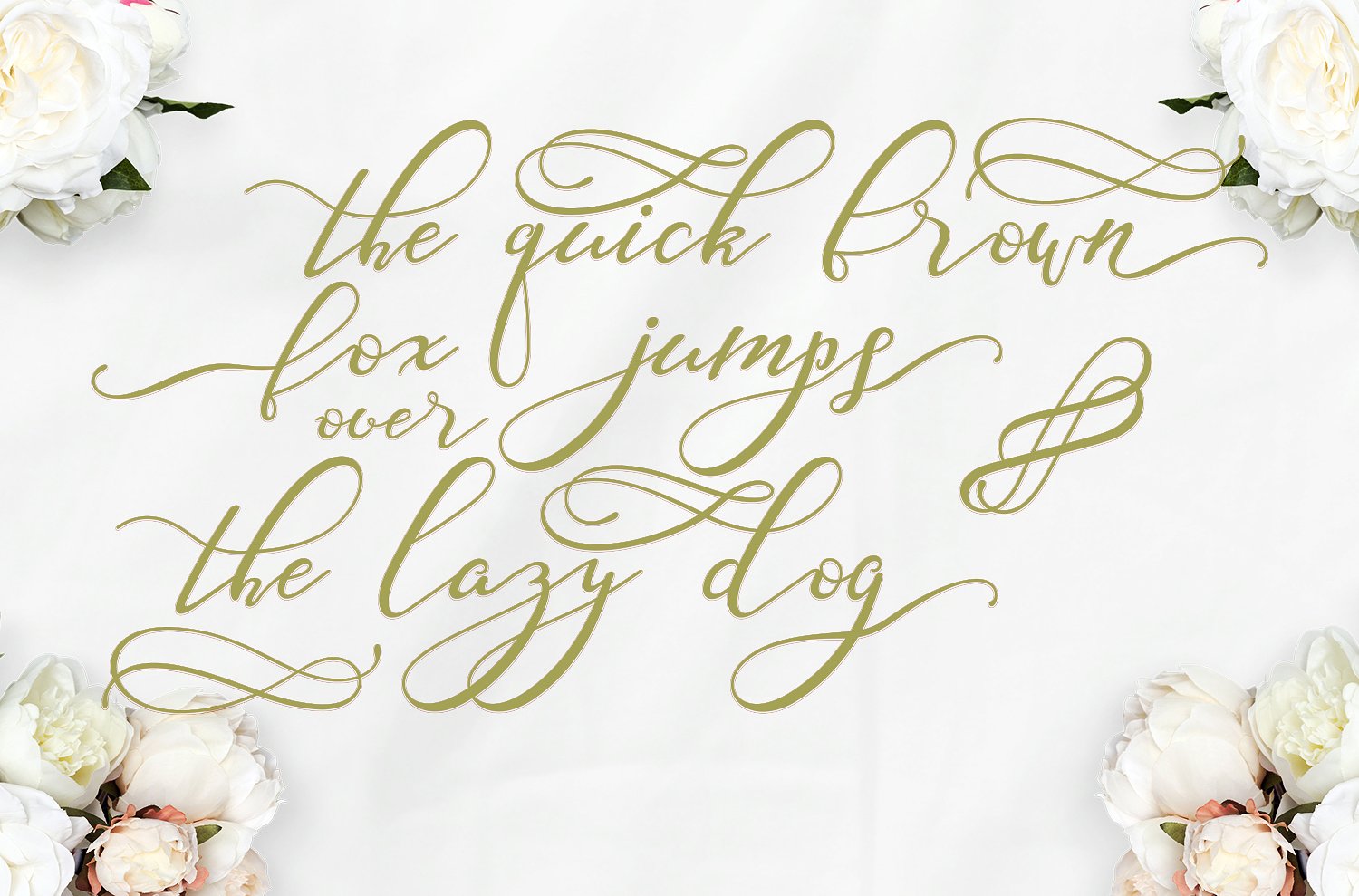
Nazeefa Script Font
Aseek Nazeefa Font finally and Ready also to Publishing Now, Nazeefa is a modern calligraphy typeface with more variation stylistics sets and many features. Nazeefa very suitable for feminime design, clothing, wedding event, wedding invitation and many more to design what you want.